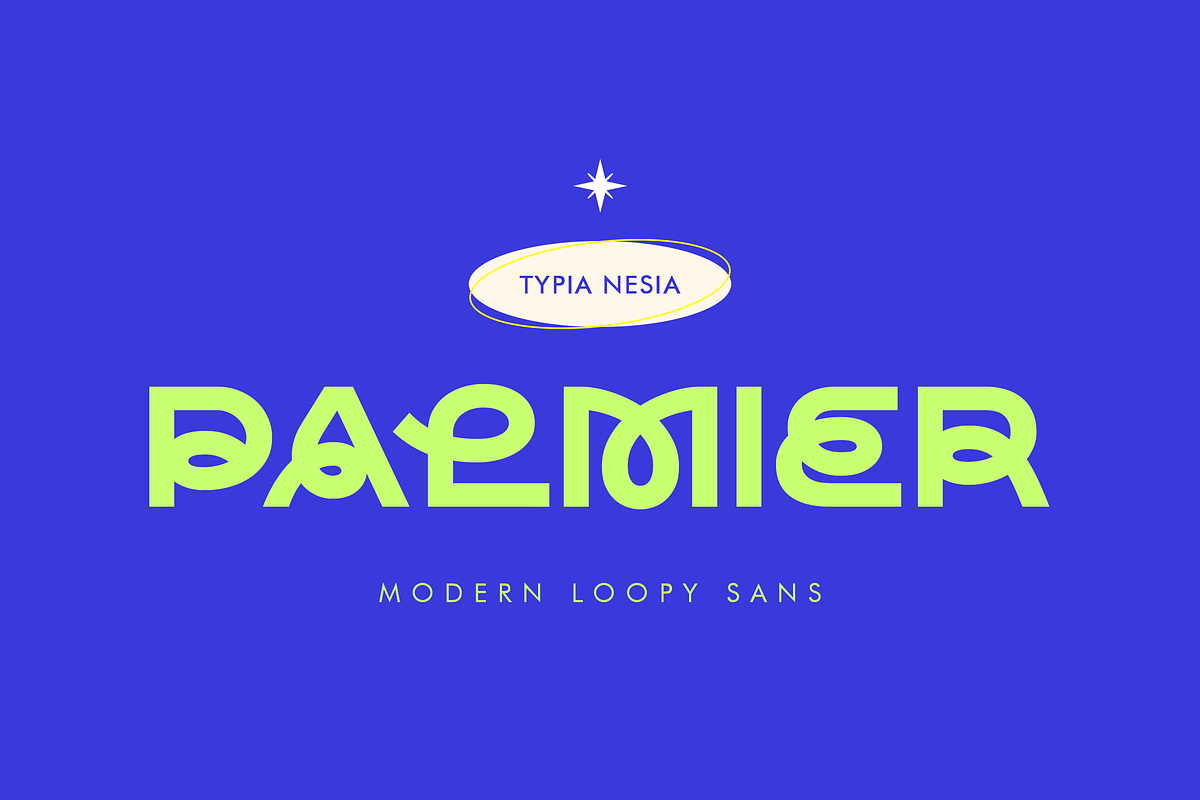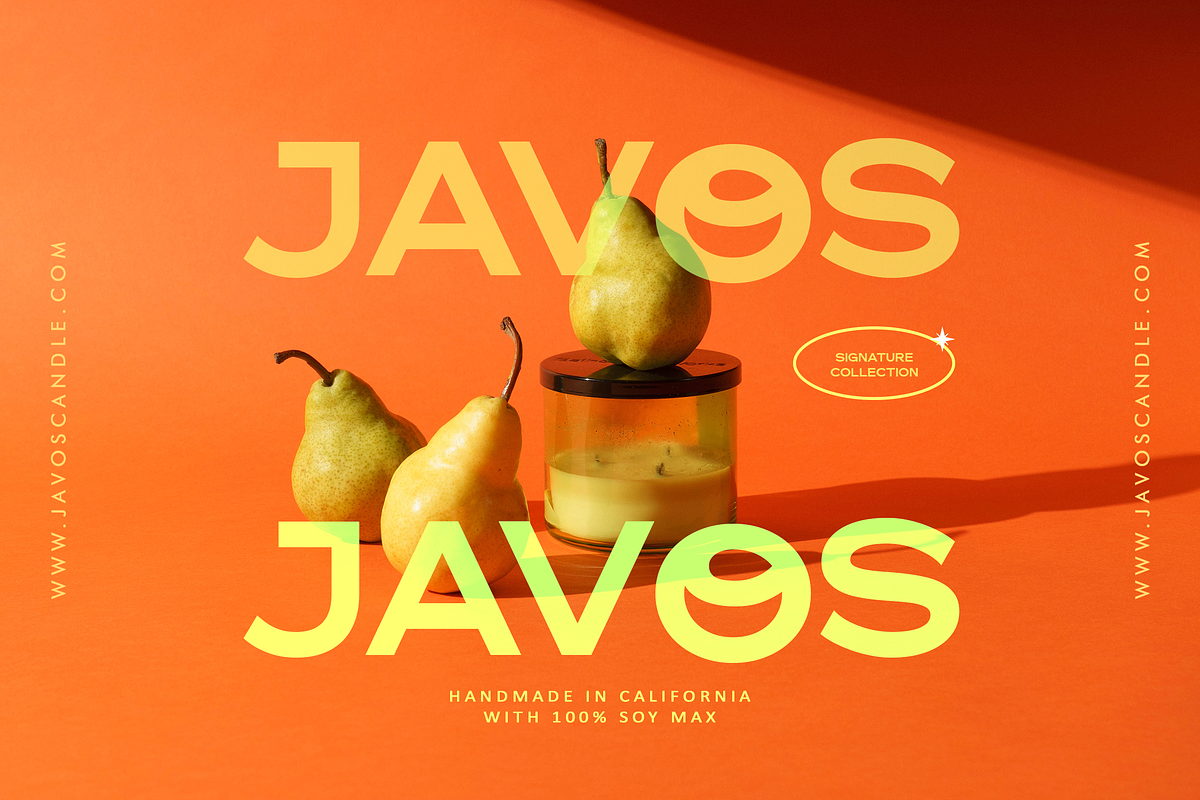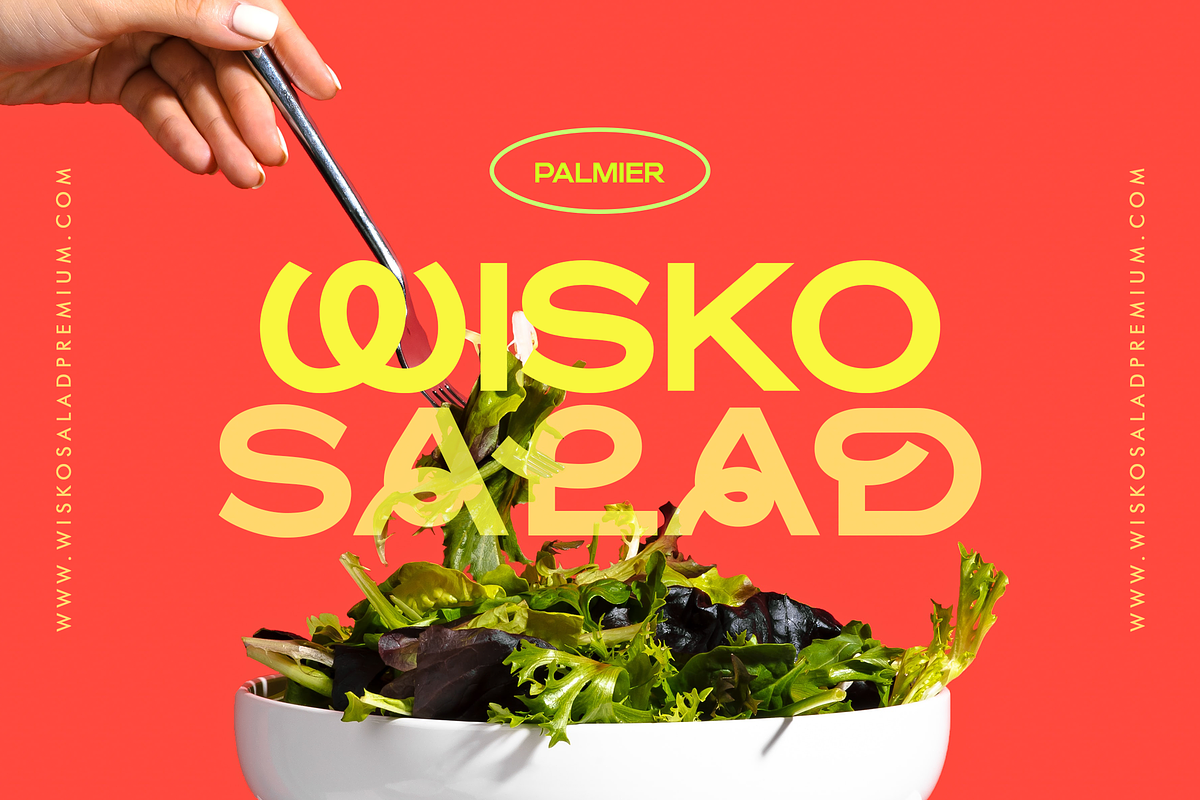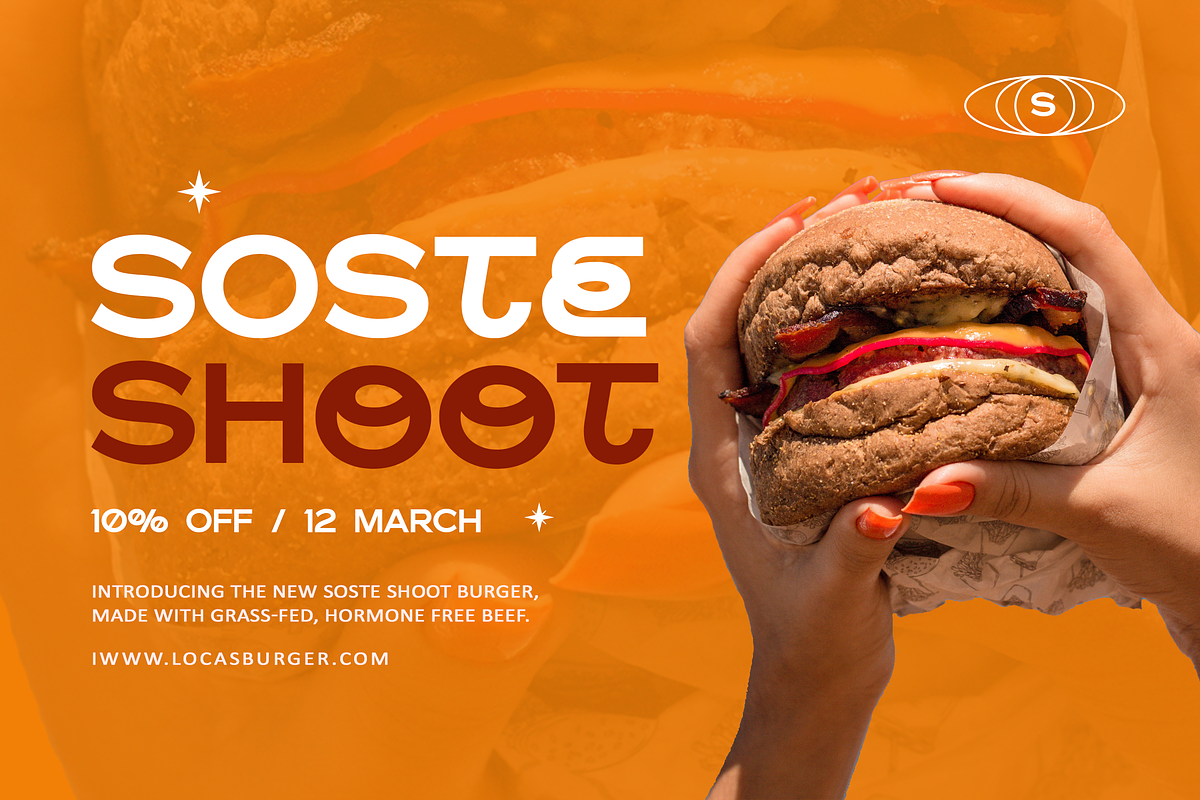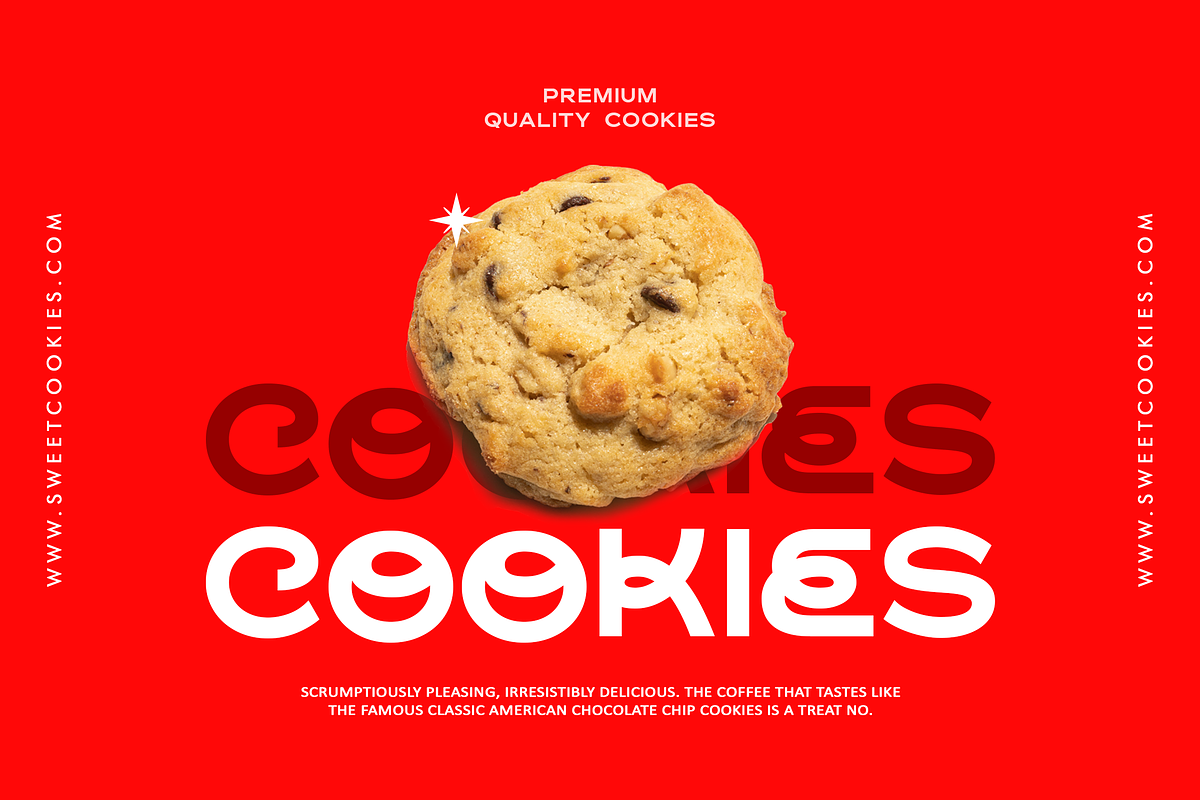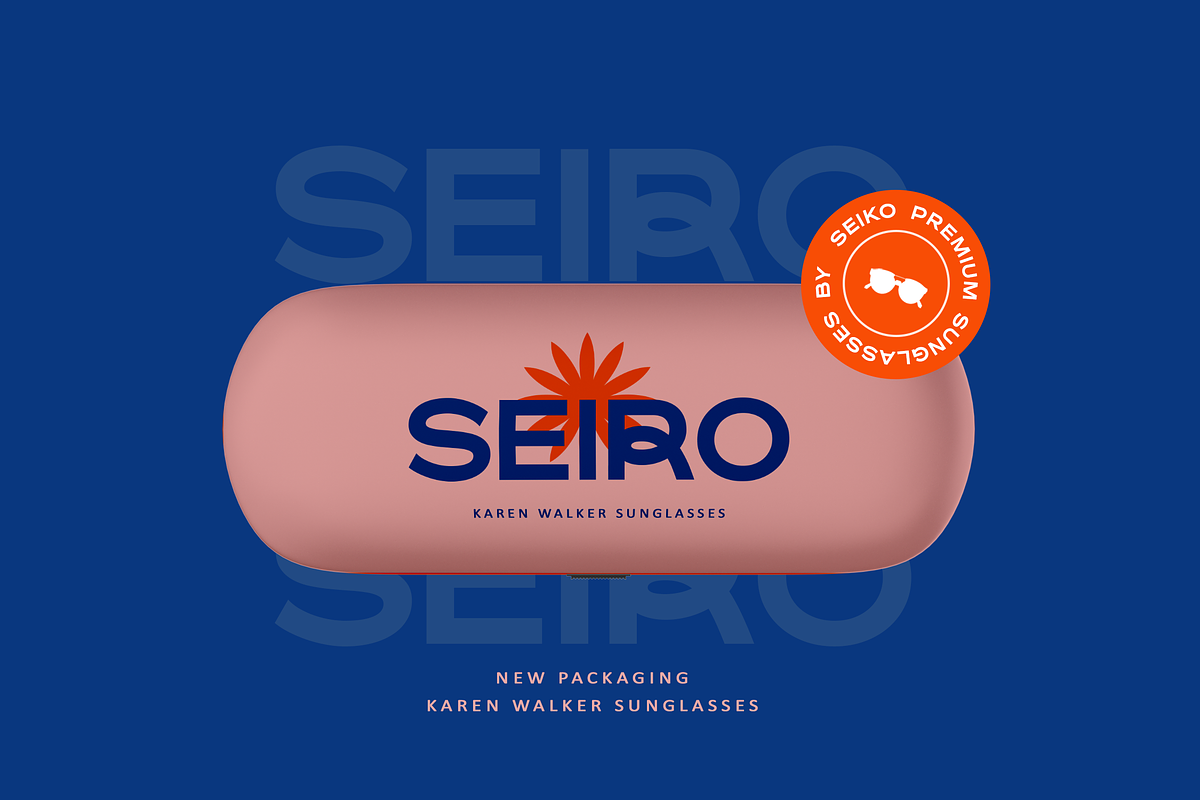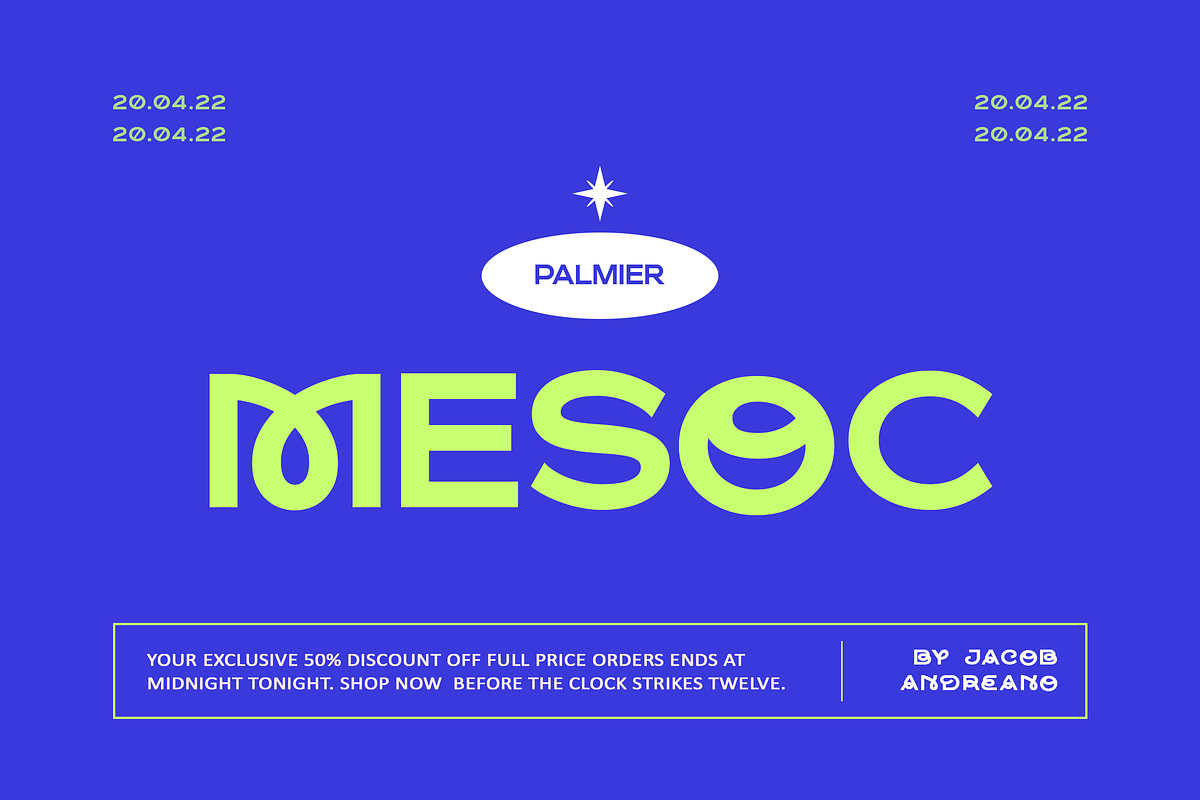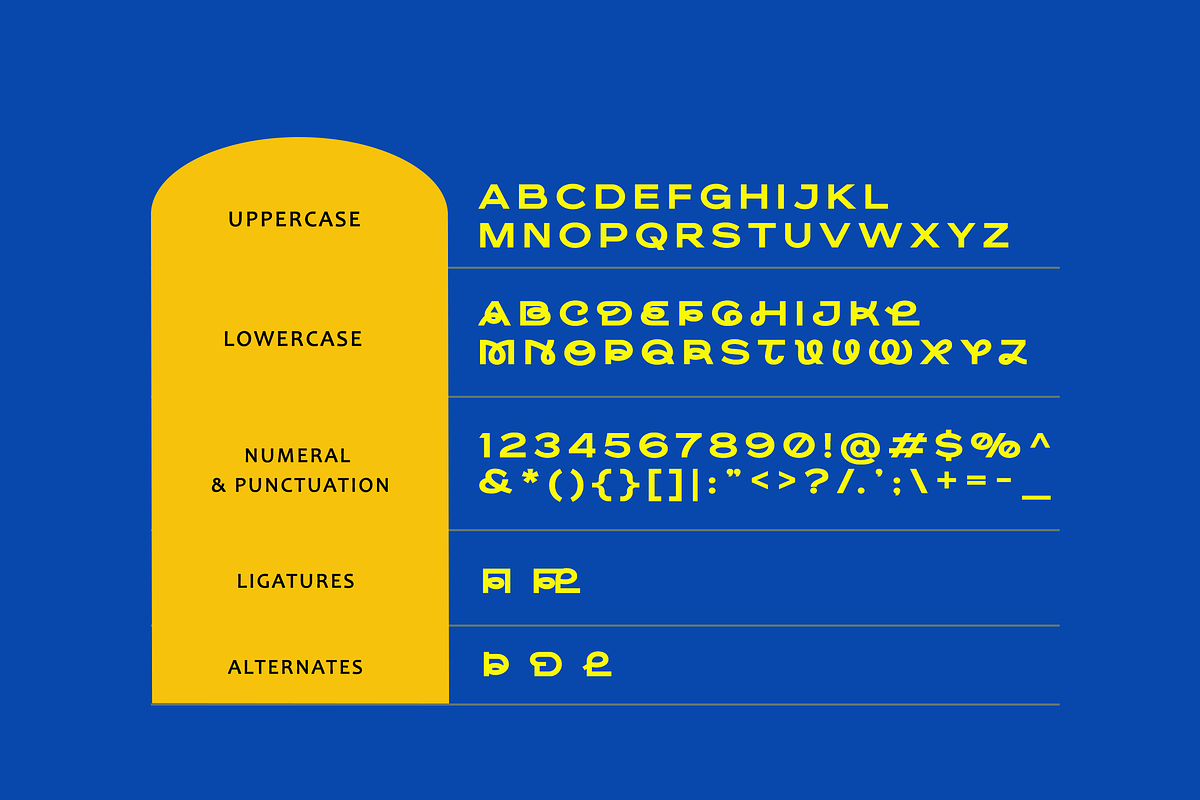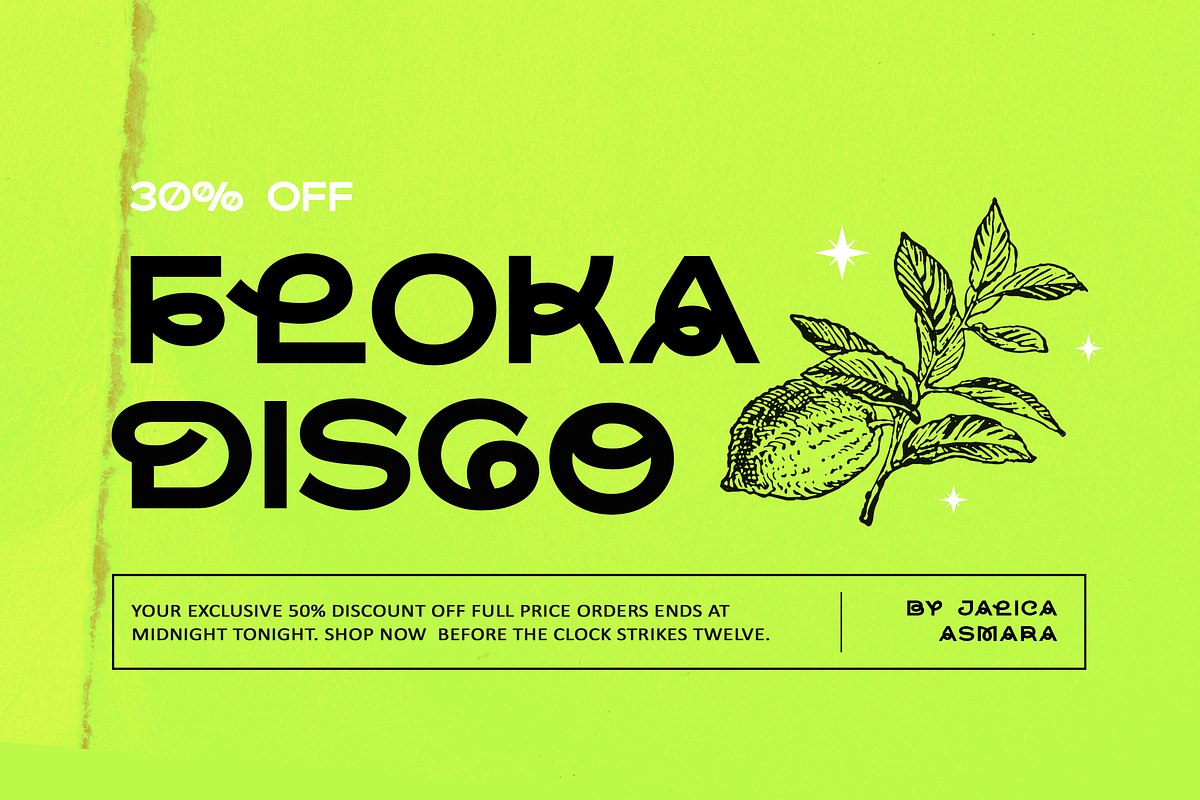
Palmier Loopy Sans
Palmier is a Modern and Bold Loopy Sans Serif Fashion Advertising Branding - Agency Logo Display Font
Palmier Font is perfect for your up coming projects. Such as logo branding, editorial design, sport design, game / gaming industry, music cover and poster, website design, modern advertising design, modern poster quote, book / magazine cover title, special events and any more.